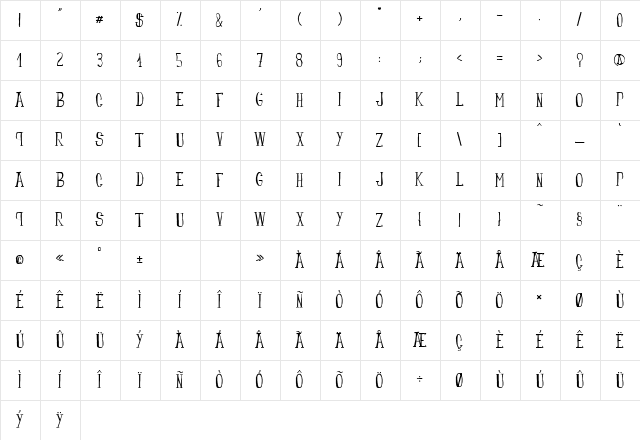
Design Context for fanfarone-bold
fanfarone-bold is a composed and adaptable typeface that performs quietly and consistently across a wide range of design contexts. Its bold stroke weight gives it real presence on the page.